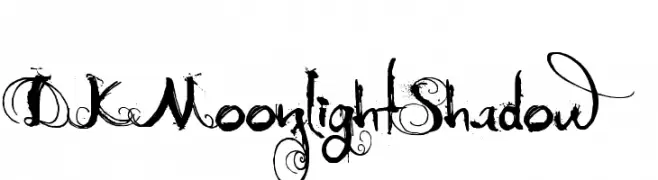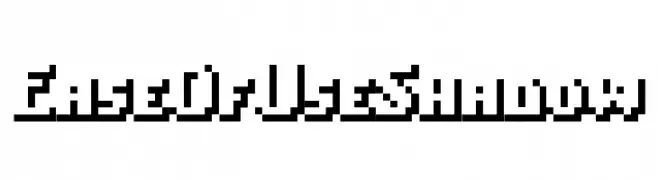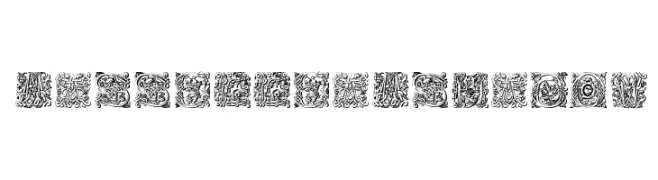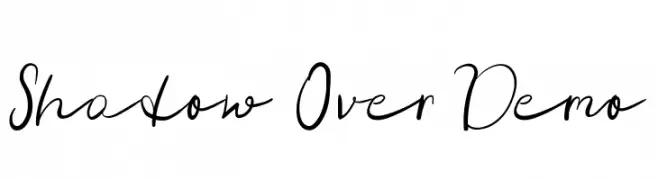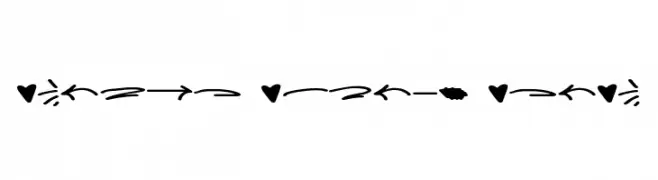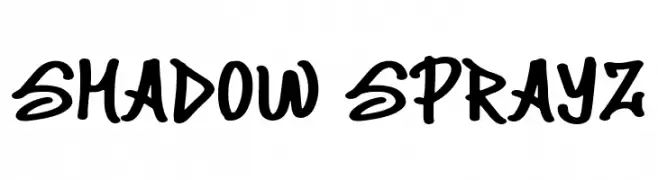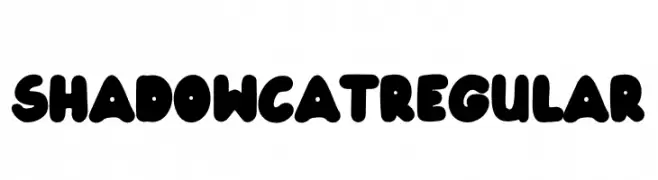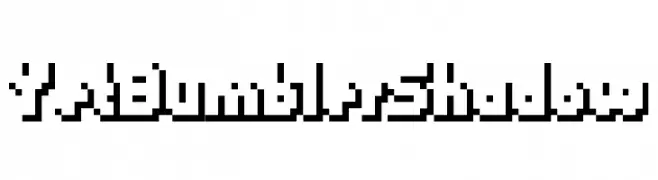
An ornate and artistic font with elaborate swirls and flourishes.
A bold, pixelated font with a retro digital style.
A pixelated, blocky font with a retro digital aesthetic.
A playful, hand-drawn font with bold, irregular characters and a whimsical style.
An ornate and decorative font with intricate swirls and flourishes.
A bold, playful font with rounded, bubbly characters.
A bold, hand-drawn font with an expressive and dynamic style.
A dynamic and fluid script font with elegant, flowing letterforms.
A bold, graffiti-inspired font with a dynamic, brush-like texture.
A whimsical, hand-drawn decorative line design with arrows, hearts, and starbursts.